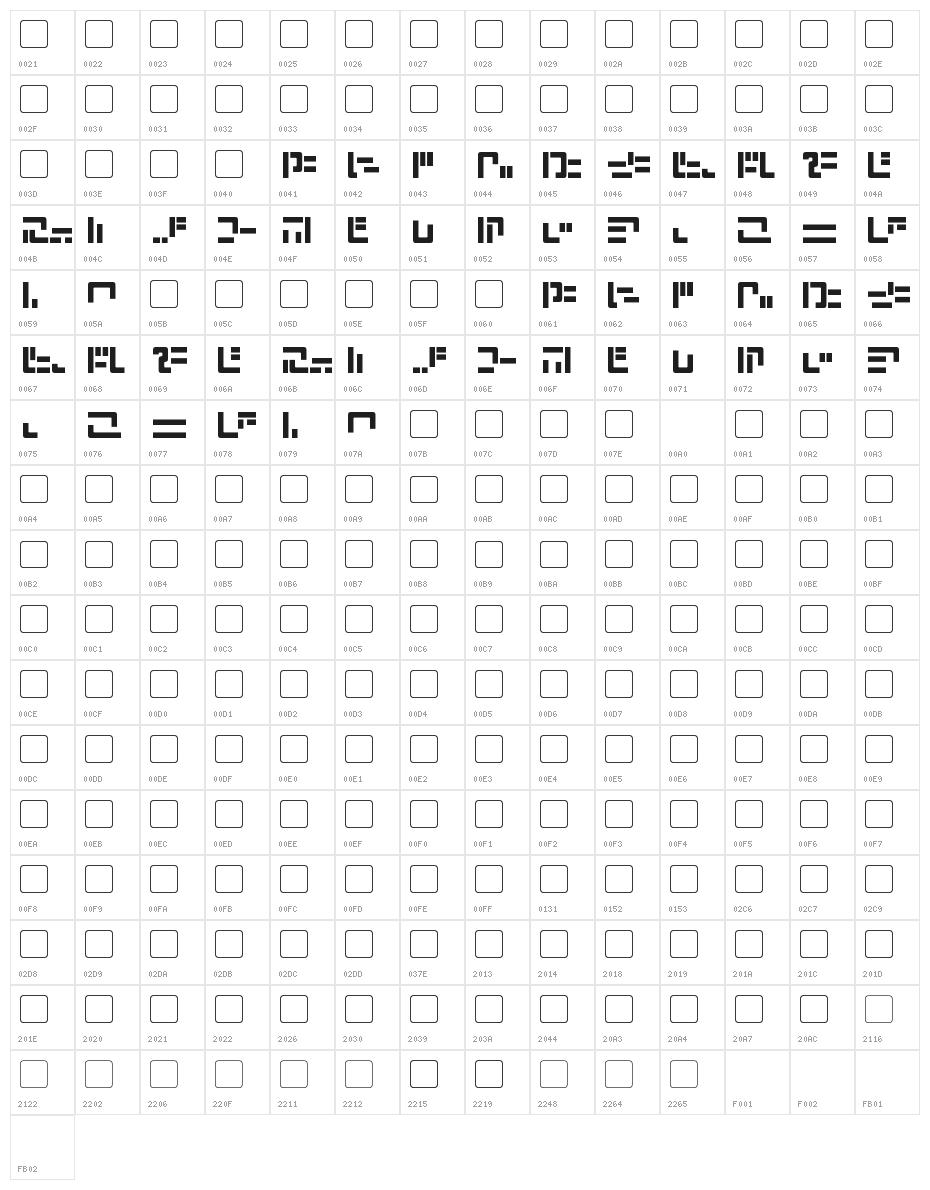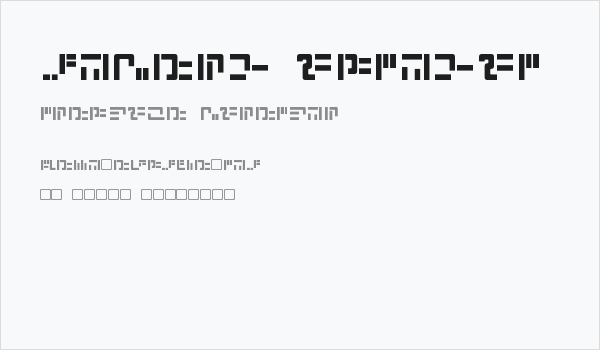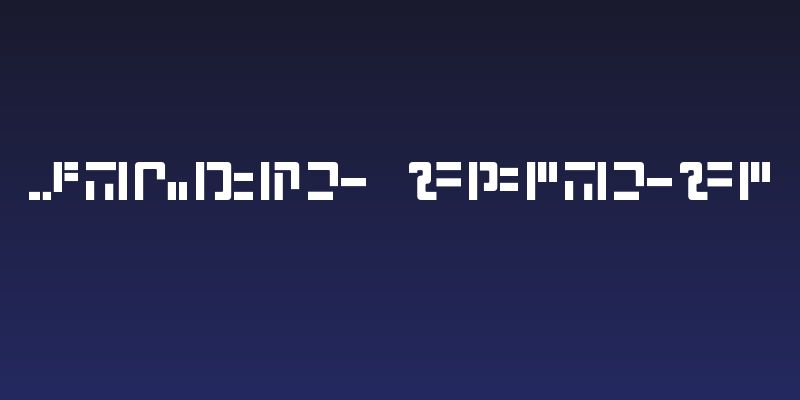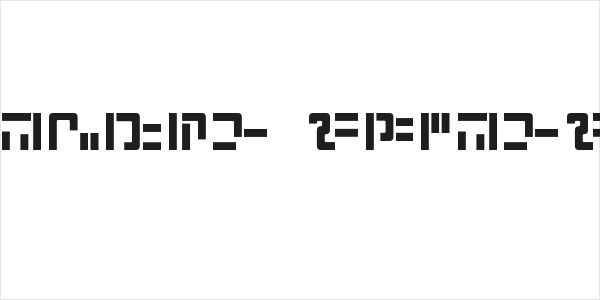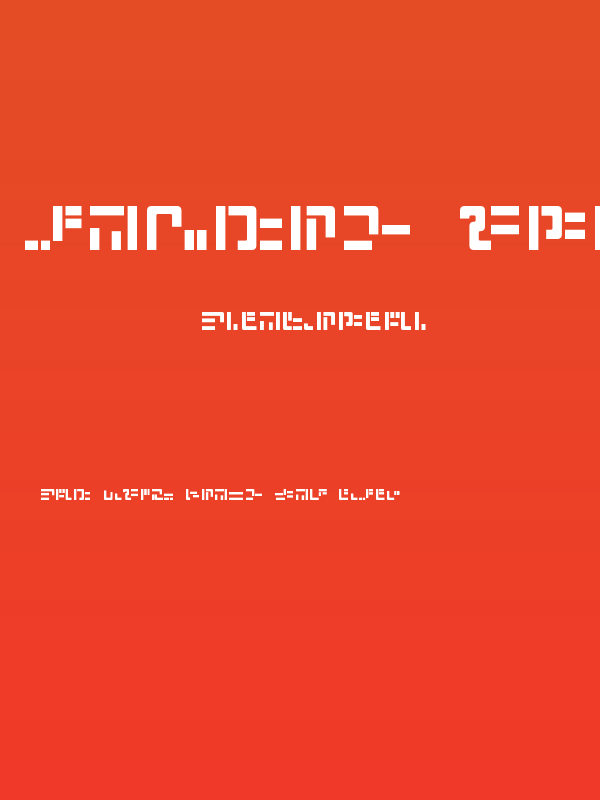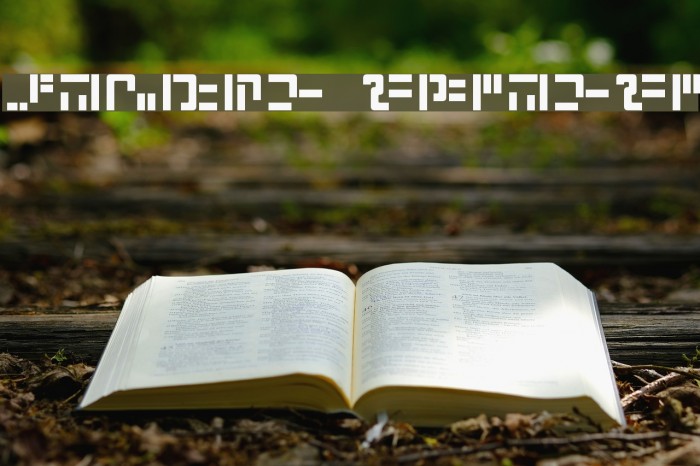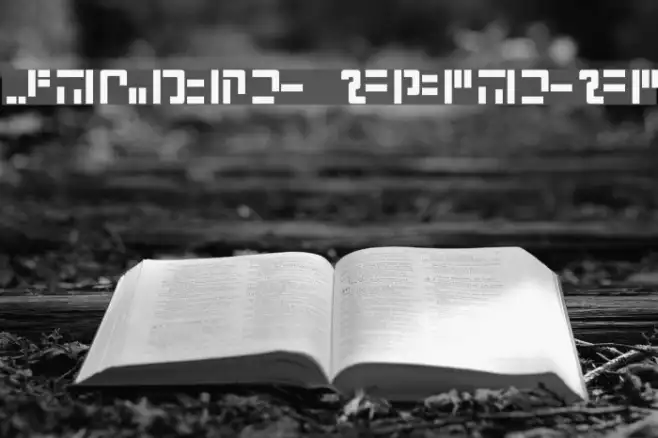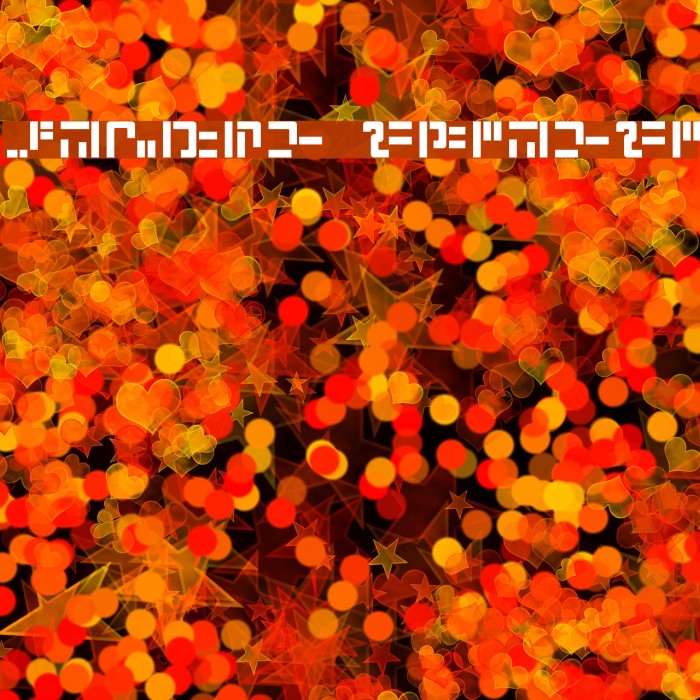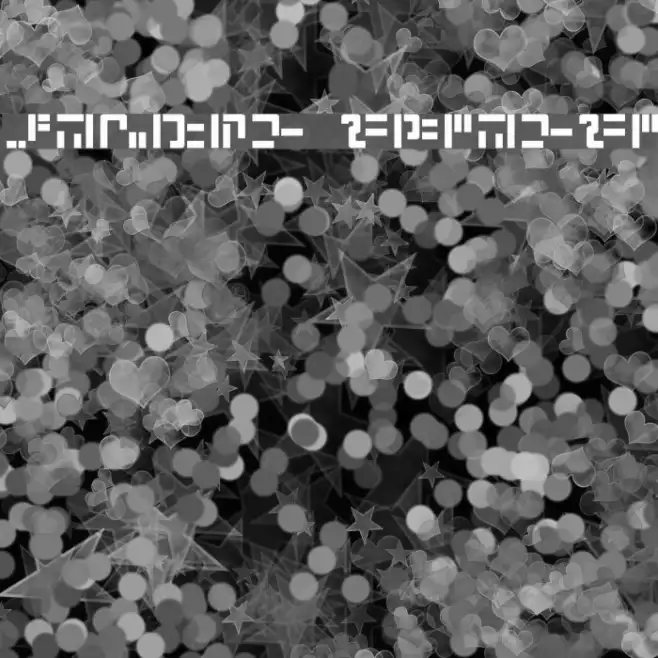
Modern Iaconic Font
Modern Iaconic Description
This font exhibits a futuristic and geometric design, characterized by its blocky and angular letterforms. The characters are constructed with a series of straight lines and sharp angles, creating a digital or technological aesthetic. The uniformity in stroke width across all characters contributes to a cohesive and structured appearance. The font lacks traditional curves, opting instead for a more mechanical and rigid style. This design choice gives it a modern and innovative feel, suitable for projects that require a cutting-edge or avant-garde look. The spacing between characters is consistent, ensuring readability while maintaining its distinctive style.
| Use Case | Logos, Headlines |
| Proposed Projects | Ideal for technology branding, sci-fi themed designs, video game interfaces, and digital art projects. |